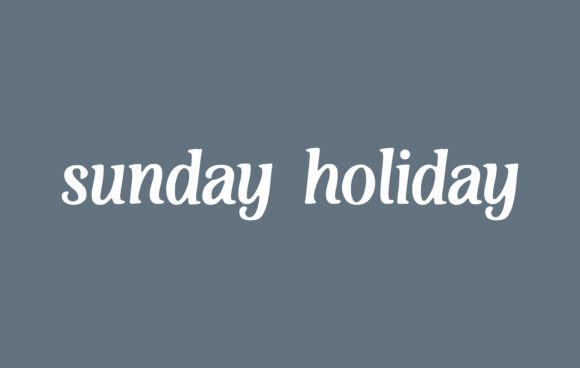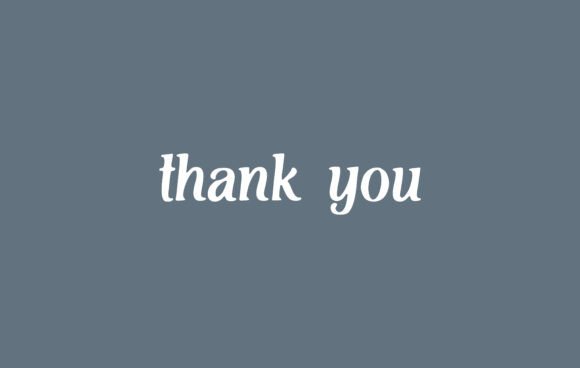
The Sweet Spot: Discovering the Charm of Chocolate Font
I still remember the design project that led me to discover Chocolate Font. I was working on a branding project for a luxury skincare brand, and I was struggling to find the perfect font that exuded both sophistication and warmth. The client wanted a font that would convey a sense of high-end quality, yet still feel approachable and inviting. After hours of scouring font libraries and testing out different options, I stumbled upon Chocolate Font – and it was love at first sight! ✨
What I Love About Chocolate Font
- ✨ Smooth, flowing shapes that convey a sense of elegance and refinement
- ✅ Subtle curves that add a touch of warmth and friendliness to any design
- 💯 Perfect for beauty, lifestyle, and artisan products – it adds a touch of sophistication and luxury to any brand
- 🎨 Highly versatile – works well for branding, packaging, editorial design, and more
While Chocolate Font is an amazing addition to any design project, there are a few quirks to be aware of: 🤔
- ⚠️ Limited availability of certain characters – some users have reported issues with certain special characters or glyphs
- 😐 May not be the best choice for body text – while it’s beautiful, Chocolate Font is more suited for headlines and titles
The Story Behind Chocolate Font
Chocolate Font was designed with the goal of creating a font that would convey a sense of sophistication and elegance, while still feeling approachable and warm. The designer wanted to create a font that would be perfect for luxury brands, high-end designs, and creative projects that require a touch of refinement. With its smooth, flowing shapes and subtle curves, Chocolate Font is the perfect choice for designers looking to add a touch of elegance to their work.
Q: What is Chocolate Font best suited for?
A: Chocolate Font is perfect for branding, packaging, editorial design, and any project that requires a touch of sophistication and elegance.
Q: Can I use Chocolate Font for body text?
A: While Chocolate Font is beautiful, it’s more suited for headlines and titles. For body text, you may want to consider a more legible font.
Q: Is Chocolate Font available in different weights and styles?
A: Yes, Chocolate Font comes in a range of weights and styles, making it versatile for different design applications.